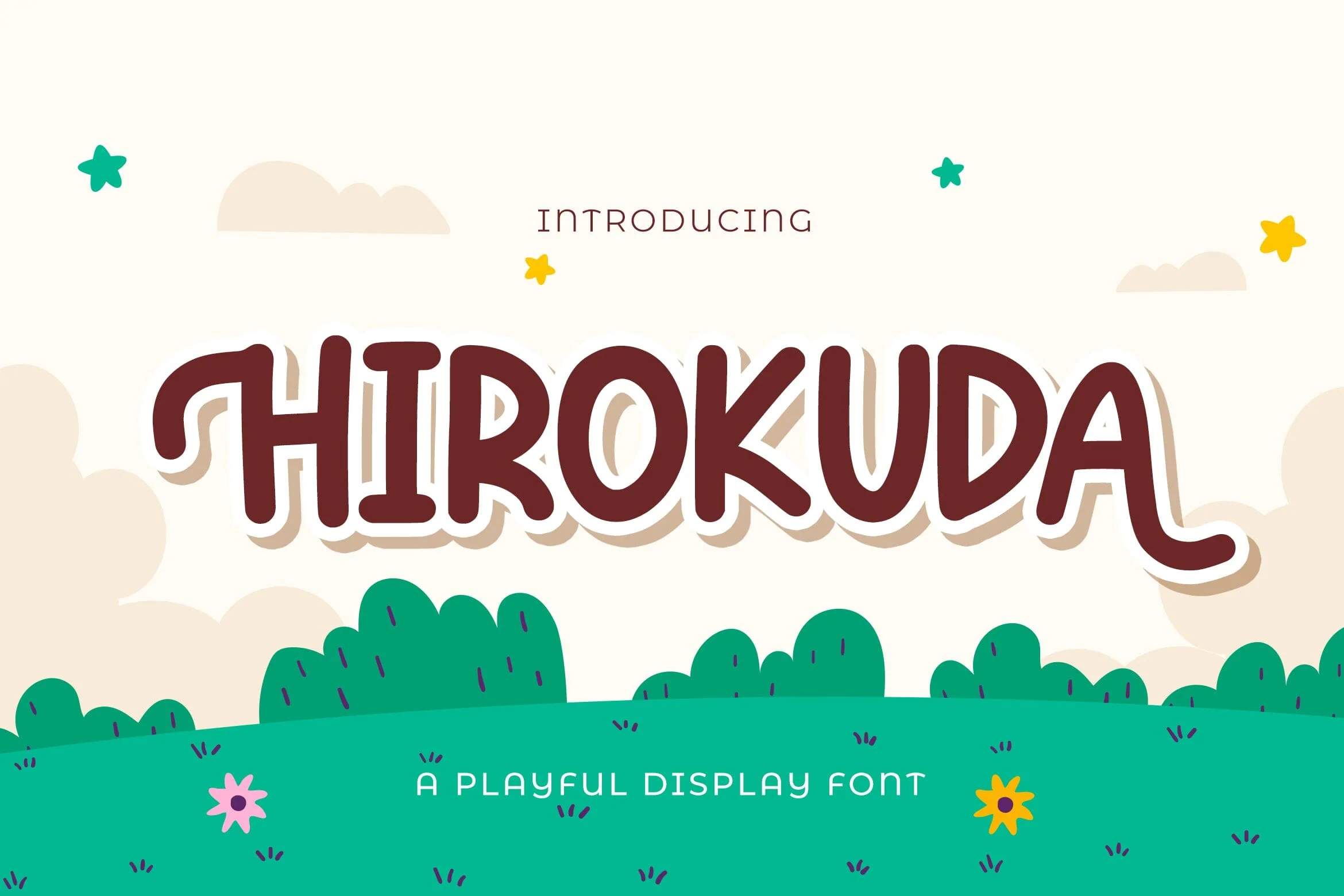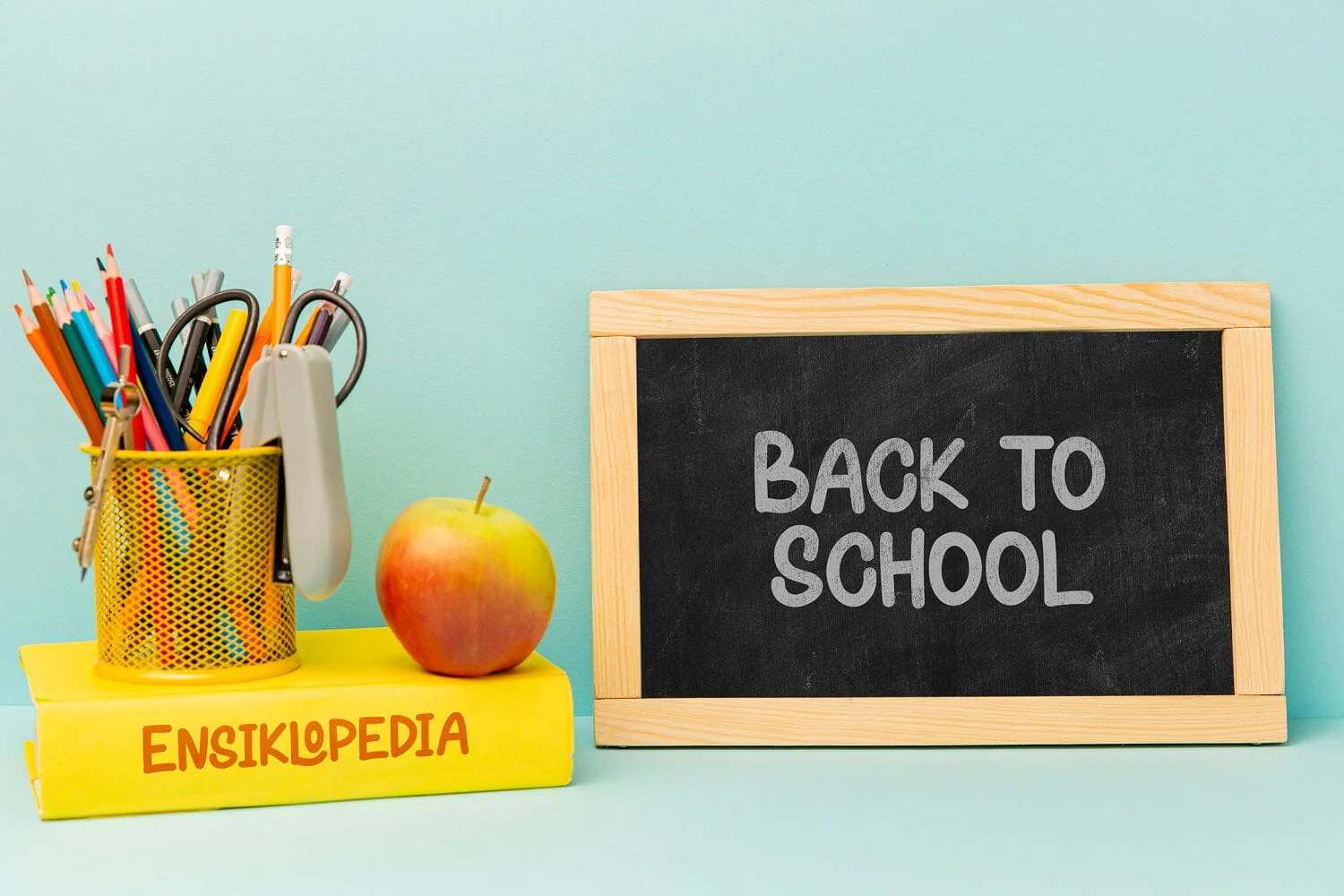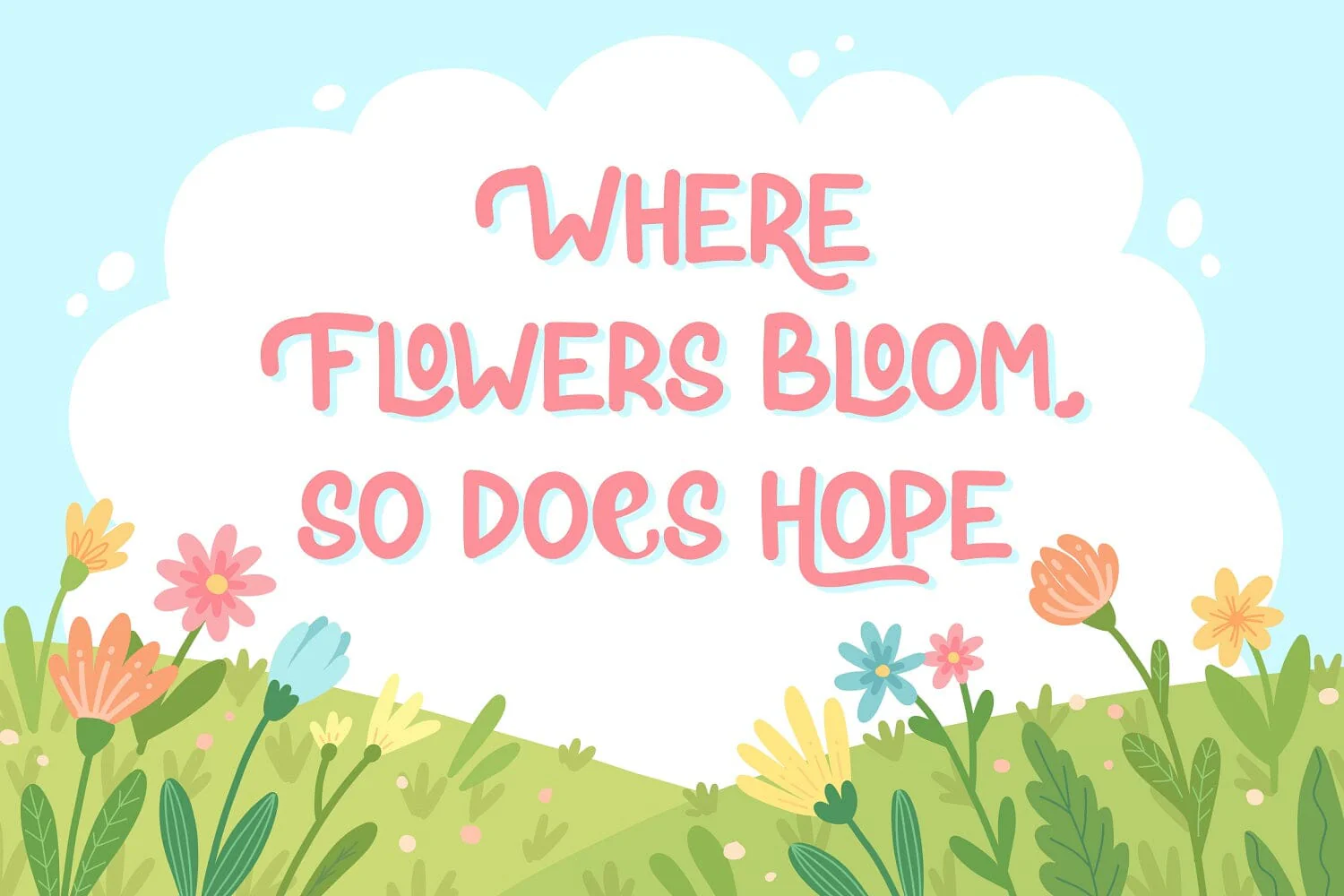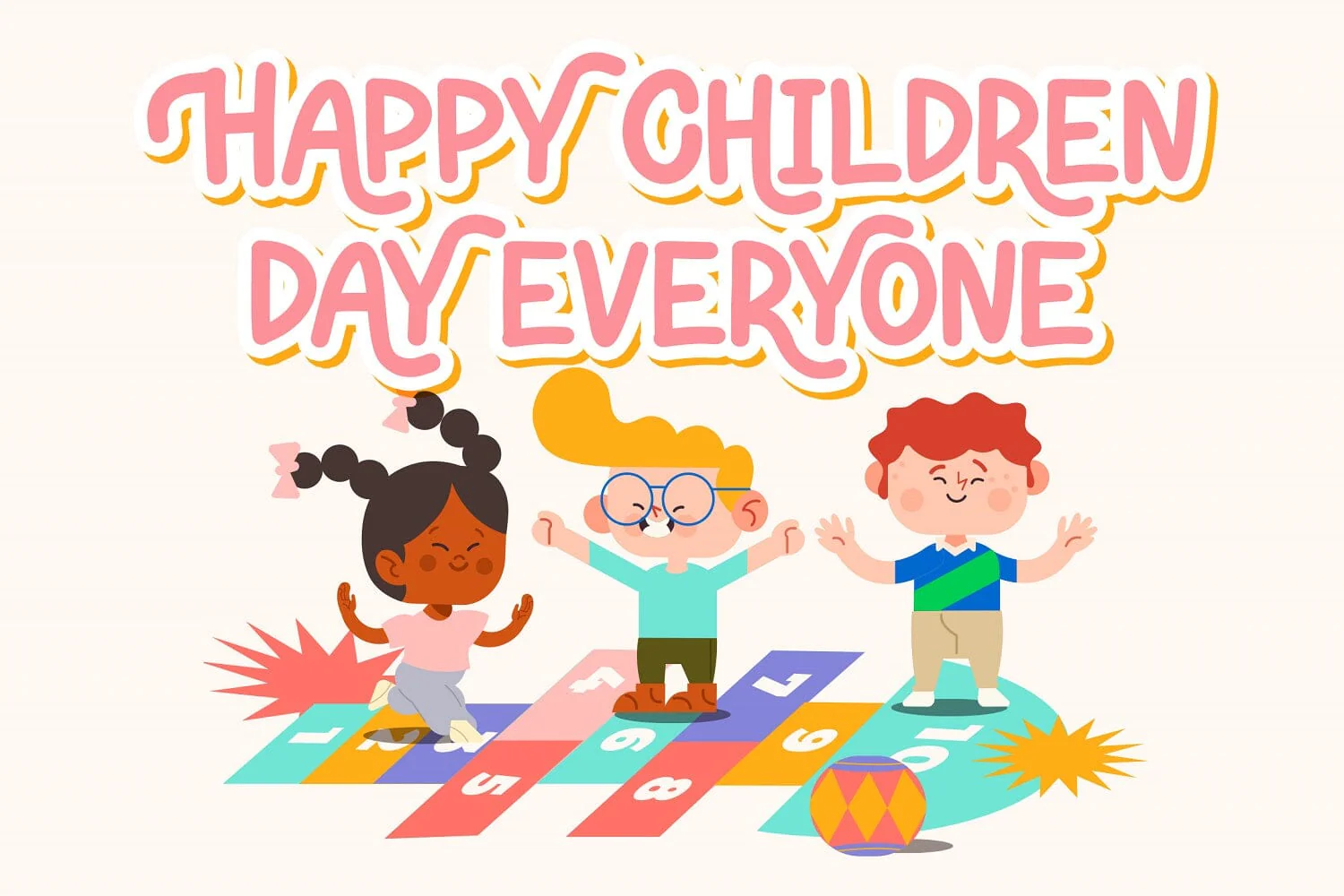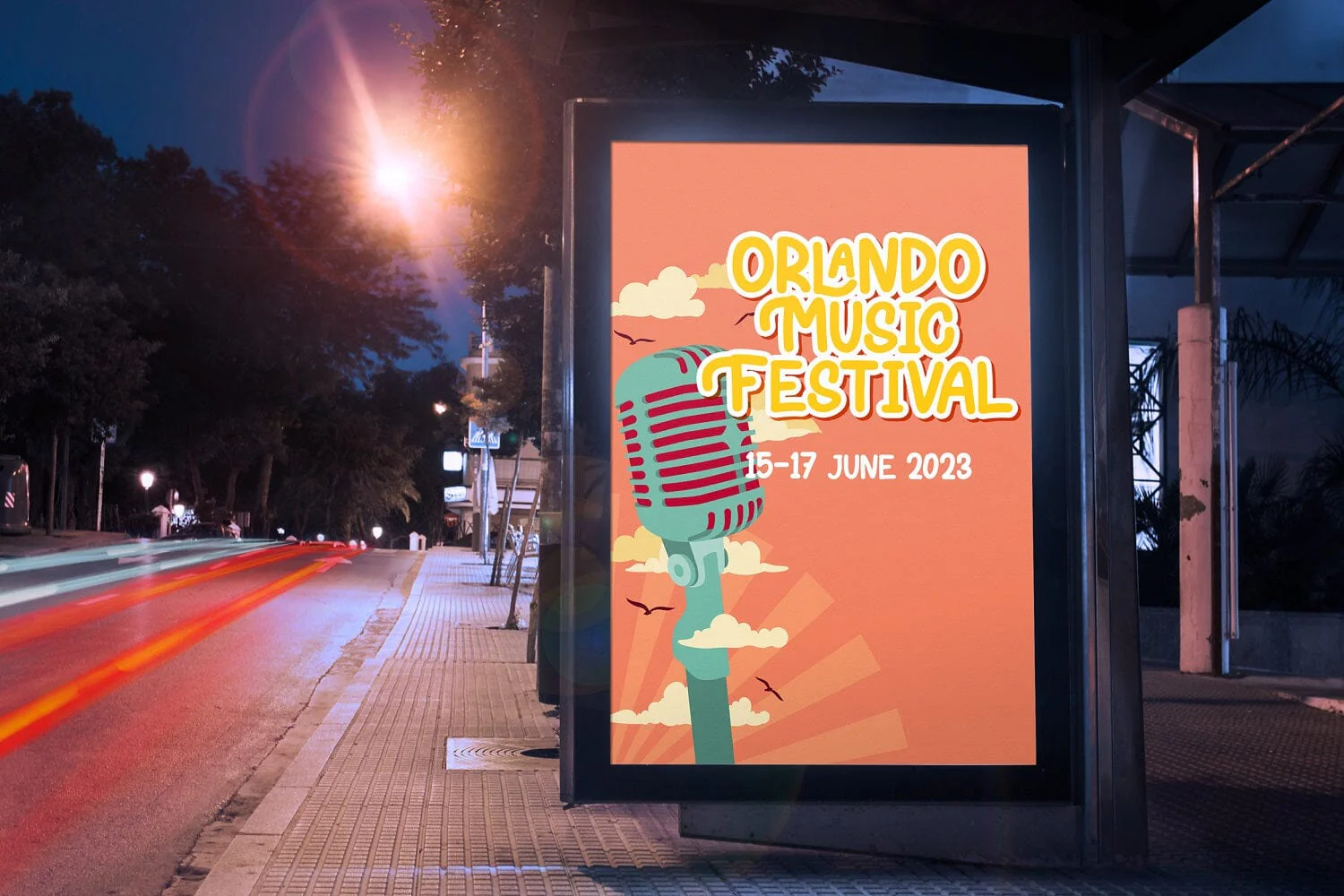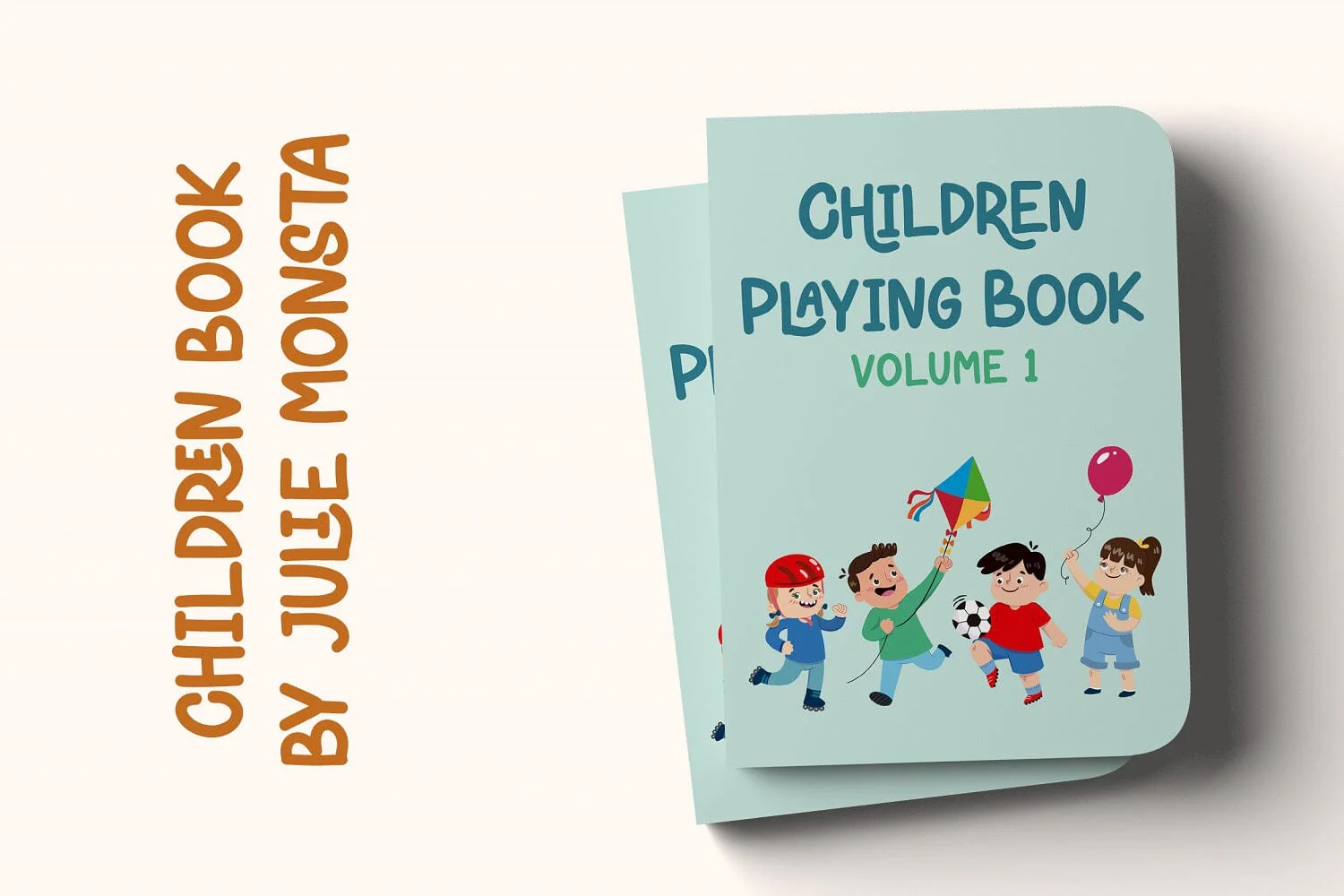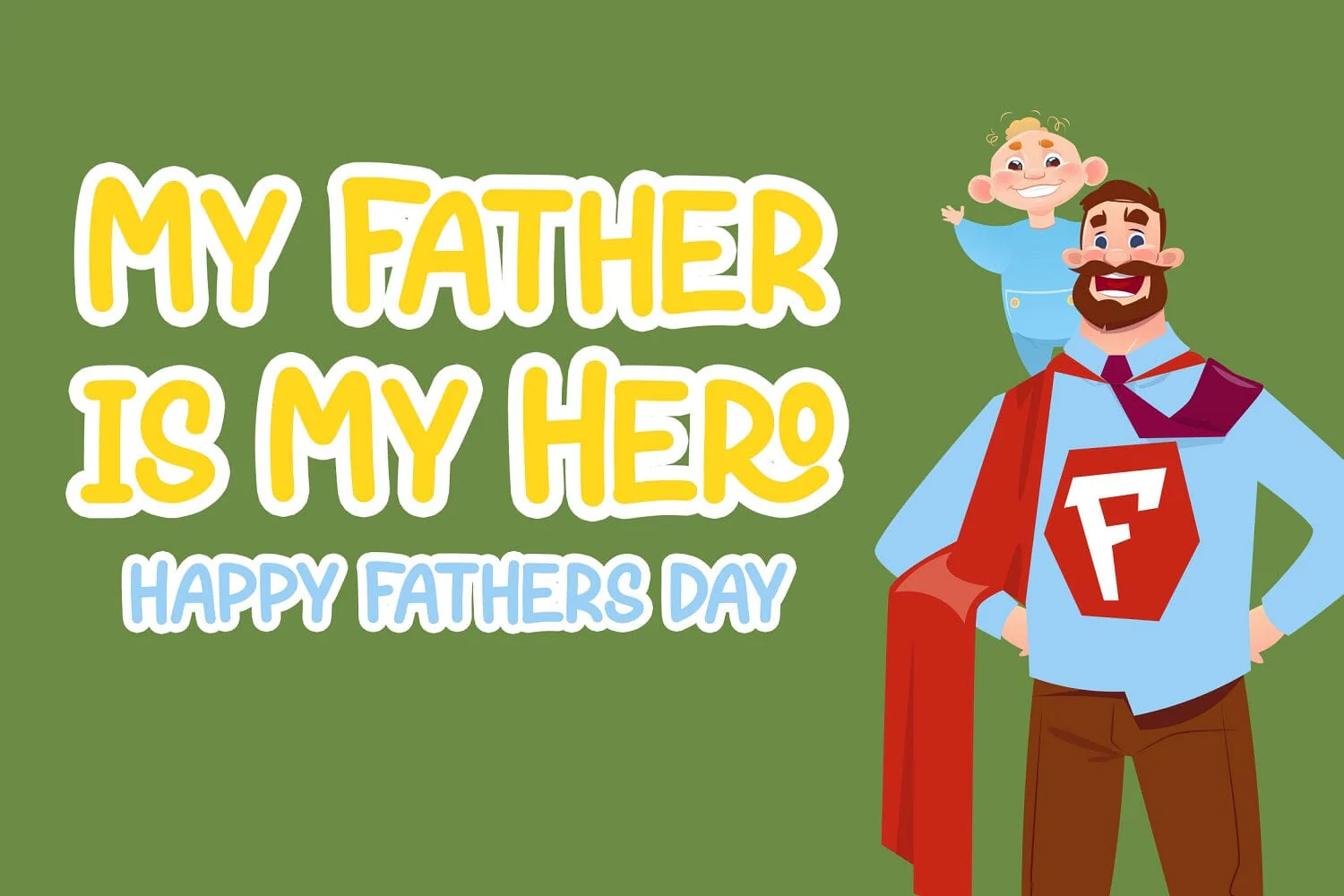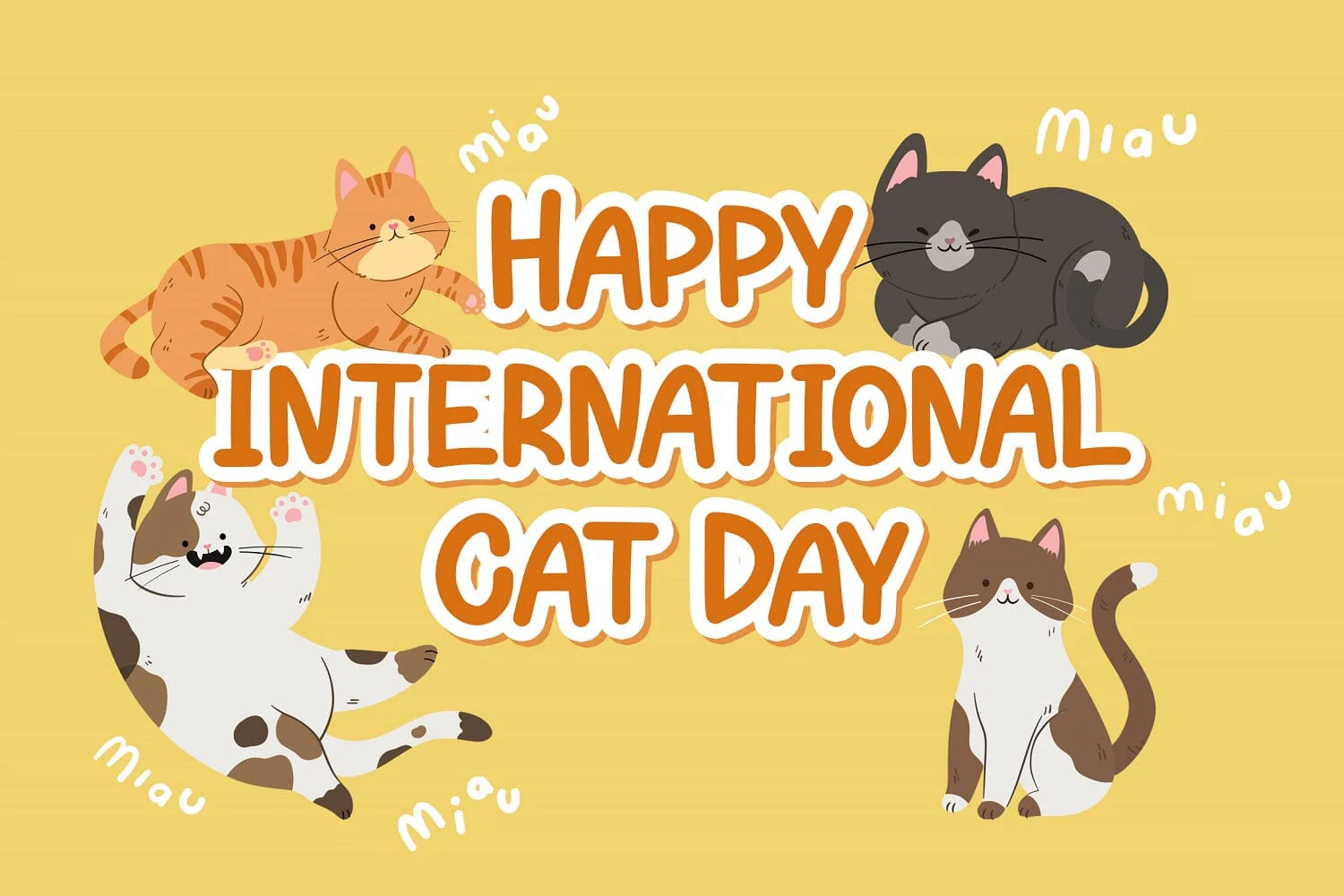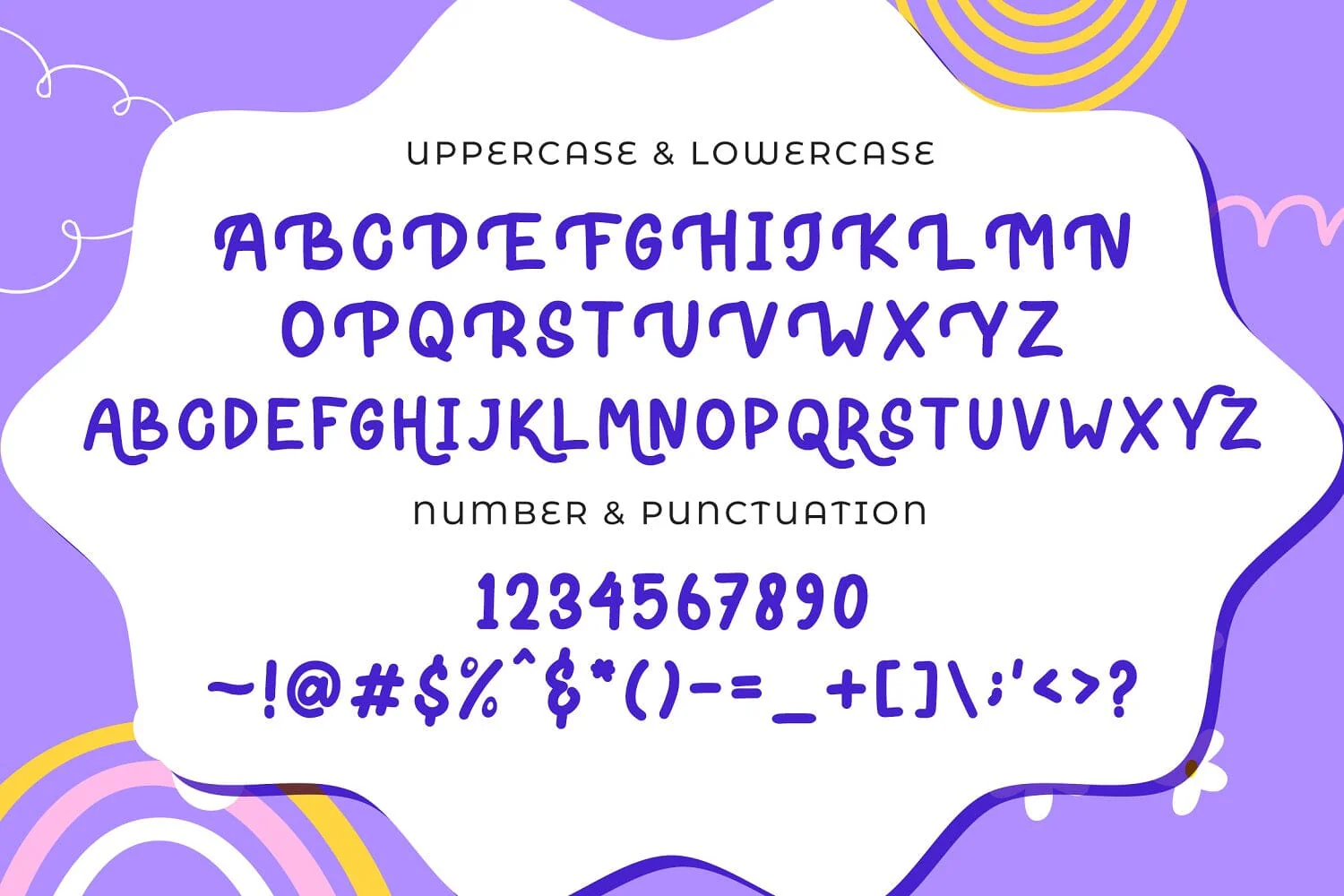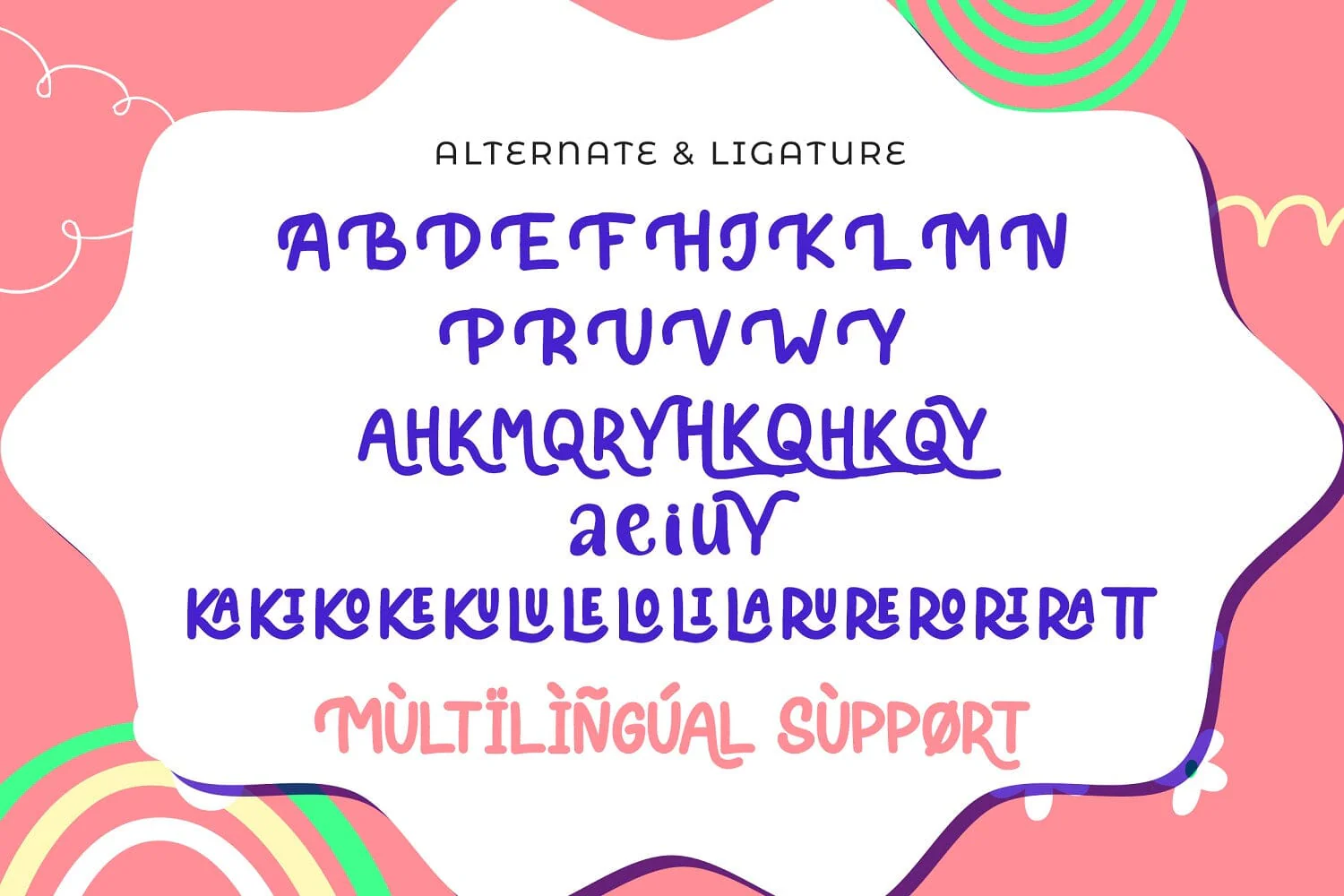
HIROKUDA - Playful Display Font
Introducing HIROKUDA – Playful Display Font
HIROKUDA is a fun display font. Playful and fresh, this font will be a hit for each of your children or school projects!
- Alternates & Ligatures